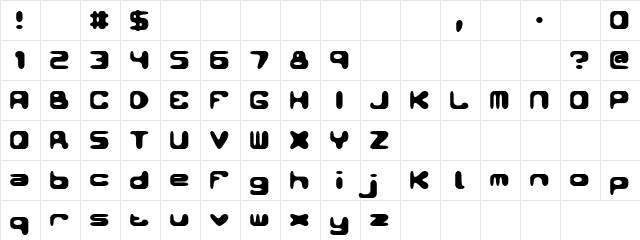
Cdommeeelos Regular
Design Context for Cdommeeelos Typeface
Cdommeeelos offers clean, dependable letterforms without strong stylistic allegiance, making it a practical choice for designers who need flexibility.